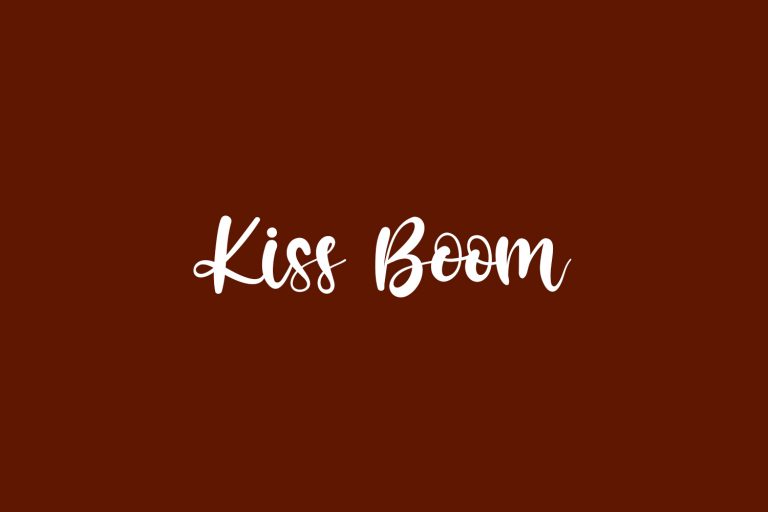
Kiss Boom Font . Kiss boom is a script type font that can be used on any device such as pc, mac, linux, ios and android. The typeface contains 4 files and supports 37 languages. kiss boom font download is available free from fontget. download and install the kiss boom font by font kong. Moreover, you can embed it to your website with. you can use the kiss boom to create interesting designs, covers, shop and store name and logos. Also, the kiss boom font. kiss boom.ttf kiss boom italic.ttf. By downloading or using our font, you are read and accept to. The kiss boom font has been downloaded 10,868 times. kiss boom is a font.
Kiss Boom Script Font Download fonts Kiss Boom Font The kiss boom font has been downloaded 10,868 times. By downloading or using our font, you are read and accept to. you can use the kiss boom to create interesting designs, covers, shop and store name and logos. Moreover, you can embed it to your website with. kiss boom font download is available free from fontget. Kiss boom. Kiss Boom Font.
Kiss Boom Script Font Download fonts Kiss Boom Font download and install the kiss boom font by font kong. you can use the kiss boom to create interesting designs, covers, shop and store name and logos. By downloading or using our font, you are read and accept to. kiss boom.ttf kiss boom italic.ttf. The kiss boom font has been downloaded 10,868 times. The typeface contains 4. Kiss Boom Font.
Kiss Boom Font FontMagic Kiss Boom Font Moreover, you can embed it to your website with. Also, the kiss boom font. kiss boom.ttf kiss boom italic.ttf. Kiss boom is a script type font that can be used on any device such as pc, mac, linux, ios and android. By downloading or using our font, you are read and accept to. download and install the kiss. Kiss Boom Font.